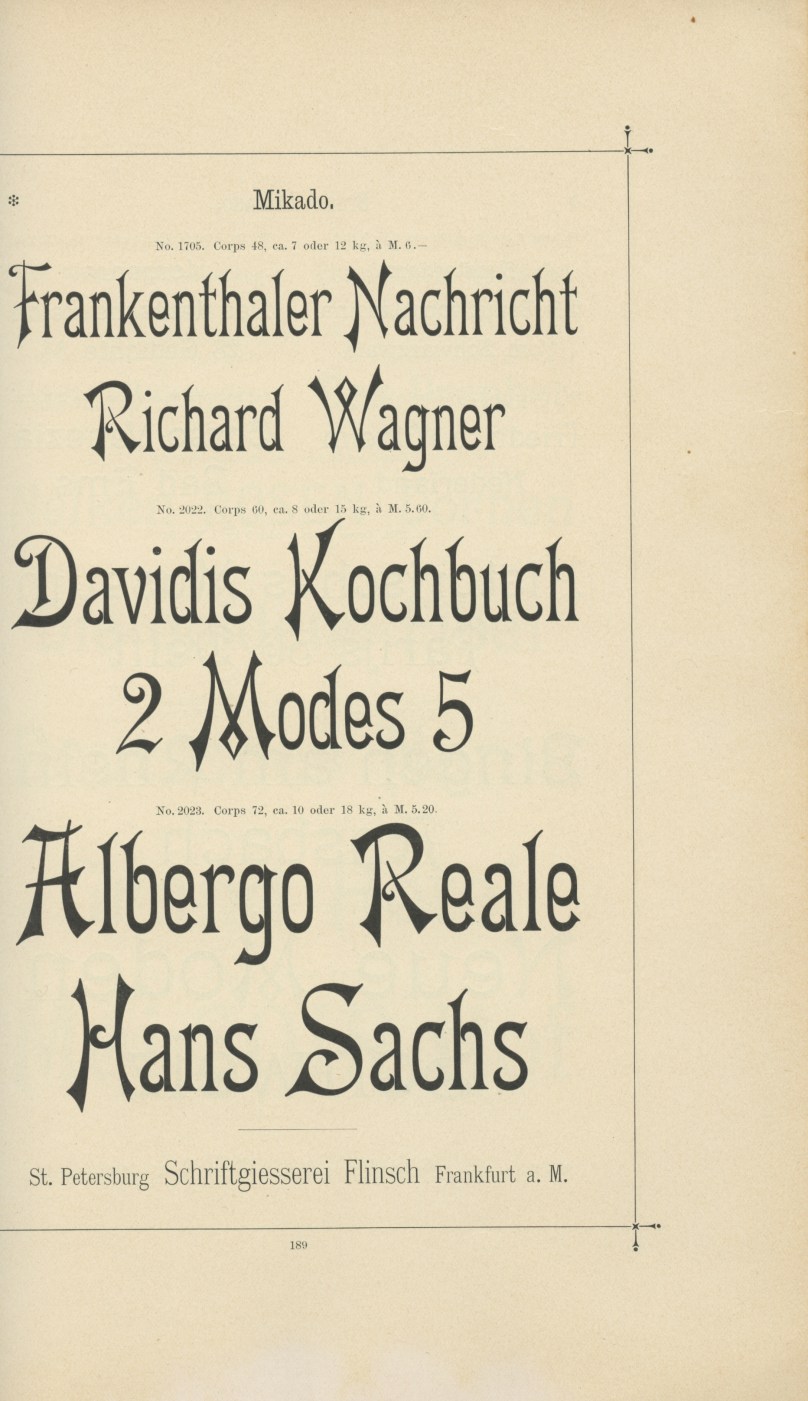
Ornate Victorian and faux Chinese fusion font from a Monotype (but not Monotype) matrix
So a bit about this font. This came from a Monotype matrix (but from examining the Monotype books we don't believe it is a Monotype font), also I don't think this has ever been digitised. I have asked on other channels and no one seems to know what it is, other then noting the interesting fusion of ornate Victorian and faux Chinese elements.
Any information on this font would be brilliant.
The bolder caps-only font is Elongated Latin aka Condensed Latin aka Latin Bold Condensed aka Latin Extra Condensed, and has been digitized by several sources. Your matrices should have a number, or maybe several numbers, on them which could help to identify both faces more specifically. Also, what are the point sizes?
The rest of the type is a different font completely and will take further research.
OK, after a bit more research I find in the Miller & Richard specimen of 1918 a font named Oceanic which is remarkably similar to the fancy one in the above image -- except it is bolder and does not have all the fancier capitals.
Perhaps M&R had a lighter weight at some point, or another foundry did a fancier version which was lighter. No 20th-century American foundry copied the face.
I have very few English or Scottish specimen resources, but at least now you have a date range of about 1910-1925 to work with. I think when it is found it will be from one of those two countries.
BTW, that particular style of type is classified as Art Nouveau rather than Victorian.
Thought I would post an update. Thanks to David Wakefield we have identified the font. It is MIKADO originally from the Flinsch foundry (1888).
Sorry, but I have to disagree. Look at the details in the cap /W and /M. Mikado is bolder than the sample you show, much like the specimen of Oceanic I found. Also, the lc /e and the number /9 are different. There are many more differences too.
Can you post a photo of one of the mats this was proofed from?
Hi George, I am waiting for the other volunteer to reply to me (I have asked him for the serial number and the picture of the matrix). Also now you mention it certain characters are far fancier in the original proof then the same characters in Mikado.... Though there are definite similarities. Can you post the picture of Oceanic you found? I could not find a picture of it myself.
This is the full page from the 1918 M&R specimen (reduced about 50% and cropped). From fontsinuse.com I found this information about the two specimens we found:
"Released in 1887 by Miller & Richard. [Reichardt] Renamed Oceanic by 1921.
Sold by Flinsch as Mikado (1890) and Fette Mikado (before 1902), by Brendler as Yum-Yum and by Amsterdam as Japansche Fantasie."
I didn't check my pre-1900 resources after I found the M&R specimen, but now that we have an earlier date I will, when time permits.
The answer is out there...somewhere.
Just to clear up on the confusion of this identification. The fount is Mikado, which was developed as a pseudo-Japanese design by Schriftgiesserei Flinsch in Frankfurt, through the later part of 1888-89. Probably named after the successful Gilbert & Sullivan comic opera The Mikado of 1885. It was a reflection of the fashion of its time after Perry opened up Japan to the west during the middle of the century. It was imported to the UK through the energetic agency of Frederic Wesselhoeft in the early months of 1890. Some success led to an expanded version before the oriental craze waned. Minor foundries electrotyped it under the same name shortly after its introduction. The Brendler Yum-Yum was obviously taken from one of the characters (a sister) in the opera.
Yeah that was my mistake, as that was the best image I could find.
Are the original mats in a private collection? If so, I'm sure the collector realizes the value of them. They need to be preserved. We don't need what happened to much of the ATF matrice library happening again.
Yes they are in his private collection, though I don't think he knows their value as prior to this he had no knowledge of what font it was. I will talk to him about it next time I see him.
I will also mention that I have not personally seen the mats. So I don't know their condition.
Is there a chance he might loan them out so they can be photographed? When digitizing old metal fonts I typically use either a microscope or digital camera to do macro photography to preserve all the details. I can probably find time to digitize this one if he wants it done. I don't think it has been done previously.